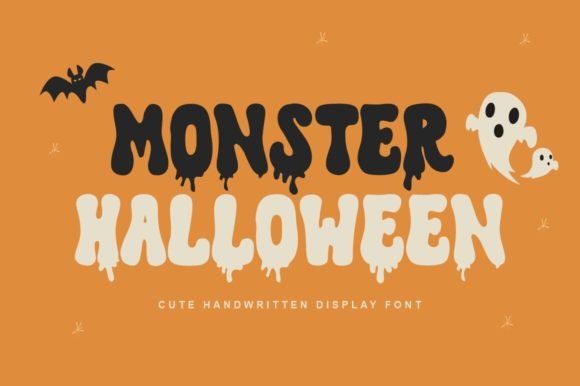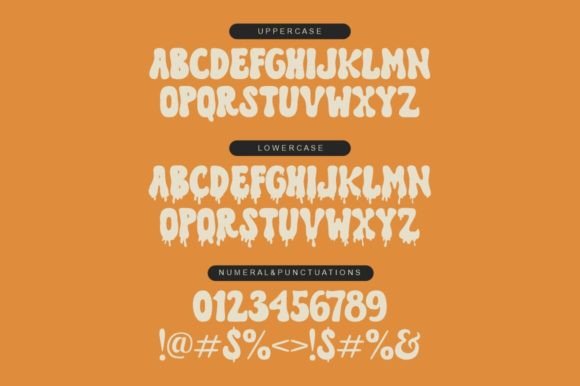
How to Choose Weird Halloween Fonts for Your Project
Weird and whimsical Halloween fonts are my favorite way to make seasonal graphics feel playful without losing their spooky personality. Instead of relying only on dripping blood letters or severe gothic type, these fonts use crooked baselines, monster shapes, ghostly decorations, wobbly curves, and unexpected details to give October designs a more imaginative look.
I selected this mix for posters, party invitations, stickers, apparel graphics, social posts, packaging, classroom projects, and cutting-machine crafts. Some picks are boldly decorative, while others leave enough breathing room for longer names and supporting text.
The best weird and whimsical Halloween fonts combine clear letter shapes with one memorable visual idea. Wonky Halloween is my top pick for hand-drawn crafts, Spooky Preppy suits colorful trend-led graphics, and Zombora brings chunky monster energy to bold headlines. Choose simpler outlines for vinyl cutting and more detailed decorative fonts for print or digital artwork.
| Font | Best for | Format or type |
|---|---|---|
| Wonky Halloween | Invitations and craft signs | Hand-drawn display font |
| Spooky Preppy | Colorful shirts and stickers | Color font set |
| Zombora | Monster-themed headlines | Chunky display font |
| Scary Halloween Trio | Coordinated design systems | Three-font collection |
| Halloween Spooky | Cute ghost graphics | Color font and clipart |
| Witch Halloween | Whimsical vintage layouts | Decorative serif font |
| Monster Halloween | Dripping display text | Halloween display font |
| Retro Spooky | Cheerful retro graphics | Quirky display font |
How I Picked These
I compared these options by how well they fit the articleโs intended use, including readability, visual character, practical versatility, distinctive features, and how clearly each choice differs from the rest of the roundup. I prioritized options that solve a specific design need rather than simply adding more similar-looking products.
Best Weird and Whimsical Halloween Fonts
1. Wonky Halloween
Wonky Halloween is a hand-drawn display font for crafters who want cheerful spooky lettering rather than polished horror typography. Its irregular characters create the loose, childlike energy I would use on trick-or-treat signs, classroom decorations, party invitations, or friendly neighborhood event graphics.
The included pumpkin and bat dingbats make it easier to build a coordinated layout without sourcing separate icons. My only caution is that the intentionally uneven shapes suit short phrases better than dense paragraphs, where the wobble could become visually tiring.
Best for: party invitations, classroom crafts, trick-or-treat signs
Key features: hand-drawn letters, irregular baseline, pumpkin and bat dingbats
2. Spooky Preppy
Spooky Preppy is a decorative color font for designers building trendy Halloween graphics with a cute, fashionable mood. Its orange, purple, and black styling makes it especially suited to stickers, youth apparel, scrapbook titles, banners, and social graphics that need instant seasonal color.
I like the flexibility of its multiple color styles and matching doodles, but software compatibility deserves attention. The black version is the more practical choice for cutting machines, while the color files are better reserved for compatible illustration and layout programs.
Best for: colorful shirts, stickers, scrapbook pages
Key features: four color styles, matching doodles, black cutting-machine version
3. Zombora
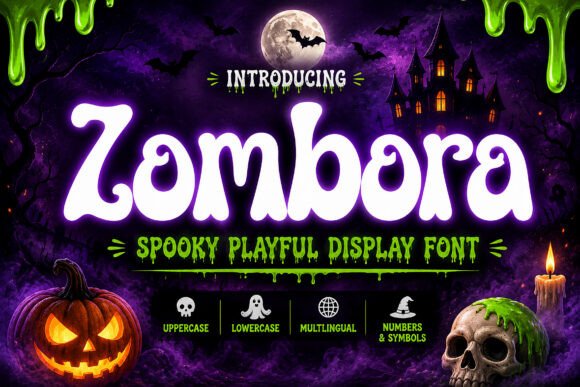
Zombora is a chunky monster display font for large headlines that need a creepy-cute attitude. Its broad, irregular shapes would stand out on candy packaging, childrenโs Halloween posters, merchandise graphics, book covers, toy labels, and bold social-media titles.
This is one of my stronger choices for short words because the heavy letterforms create immediate visual impact. I would avoid setting long sentences in it; the dense shapes are better treated as the main illustration while a quieter sans serif handles supporting copy.
Best for: monster posters, candy labels, childrenโs merchandise
Key features: chunky construction, uppercase and lowercase, punctuation and PUA encoding
4. Scary Halloween Trio
Scary Halloween Trio is a coordinated font collection for designers who need more than one visual voice within the same project. Its sans serif, serif, and dingbat components can support a headline, secondary phrase, and decorative details without forcing you to combine unrelated type families.
My pick for multi-part graphics, this trio could simplify invitations, printable activity sheets, party kits, and childrenโs game designs. The main limitation is restraint: using every style at once may crowd a small composition, so I would choose one dominant font and use the others sparingly.
u003cstrongu003eOne decorative Halloween font is enough for most graphics, while a second restrained typeface should handle supporting information.u003c/strongu003e This creates a clear focal point and prevents irregular letters, dingbats, swashes, and illustrations from competing across the entire layout. A coordinated collection such as Scary Halloween Trio can support more variety because its styles were designed to relate to one another. Even then, assign each font a specific role rather than mixing all available styles in every line.